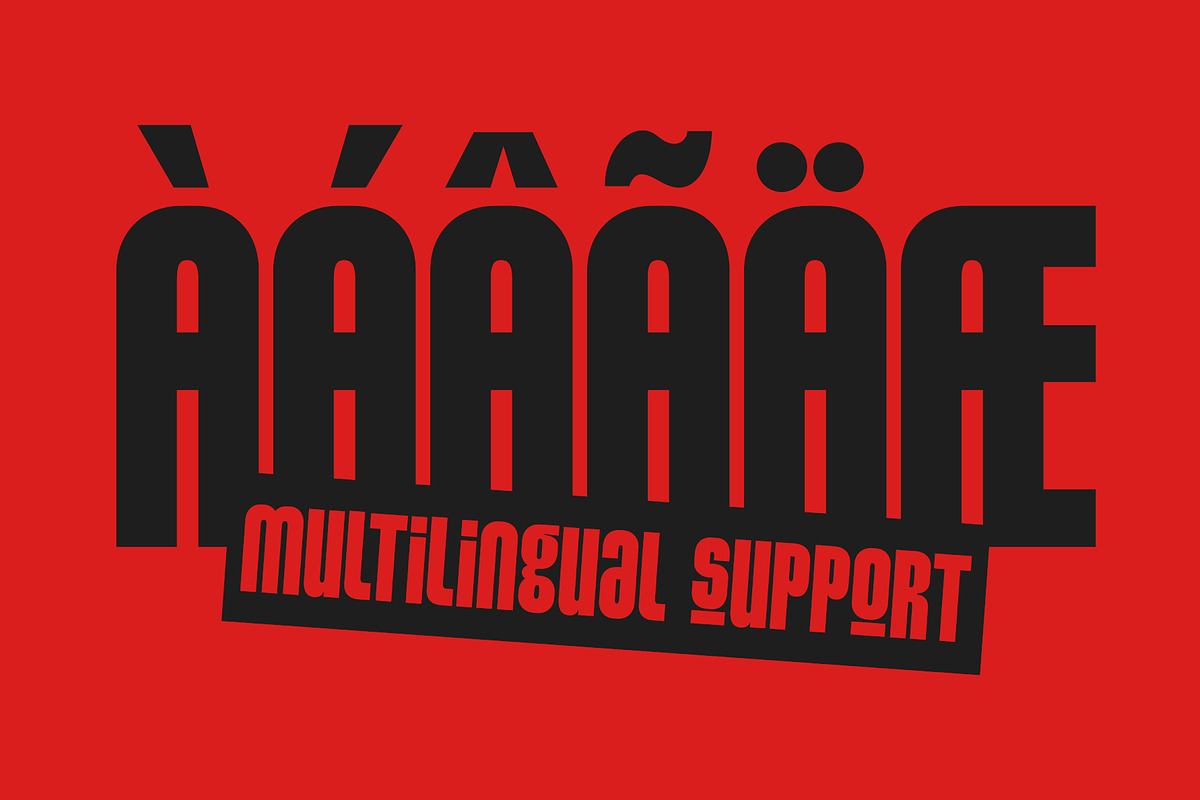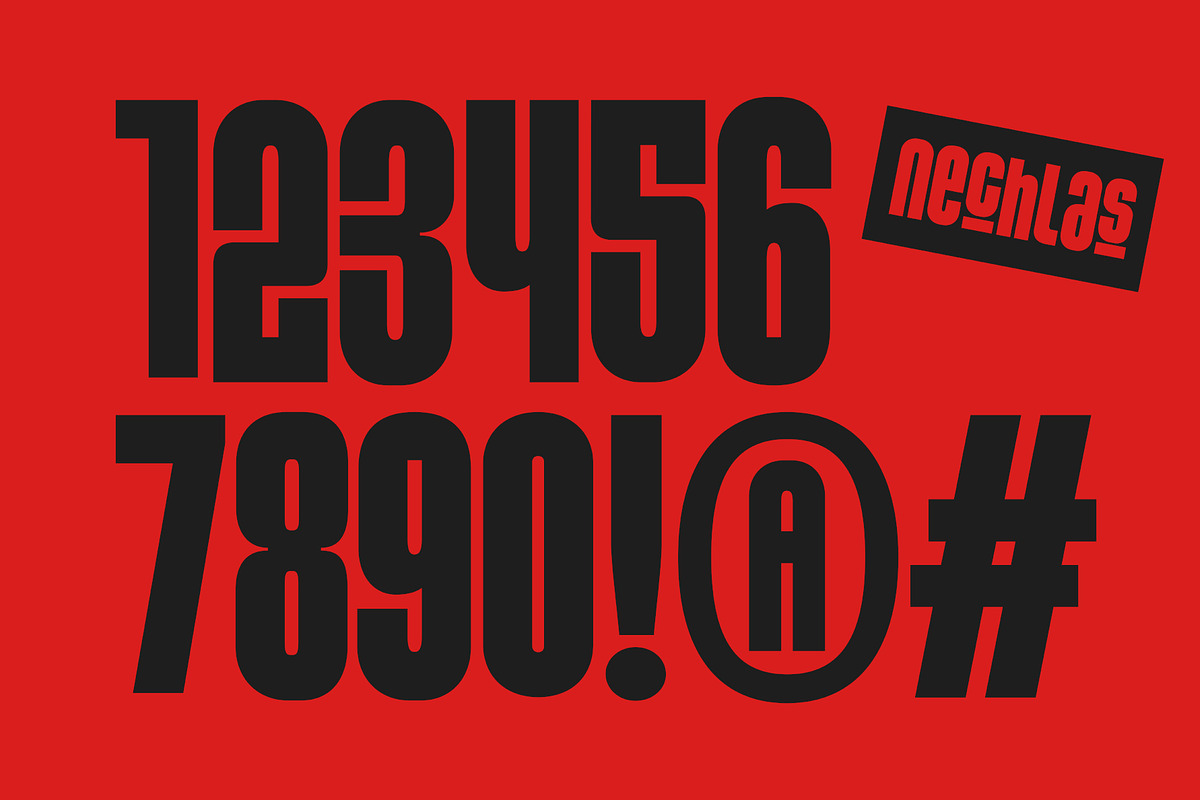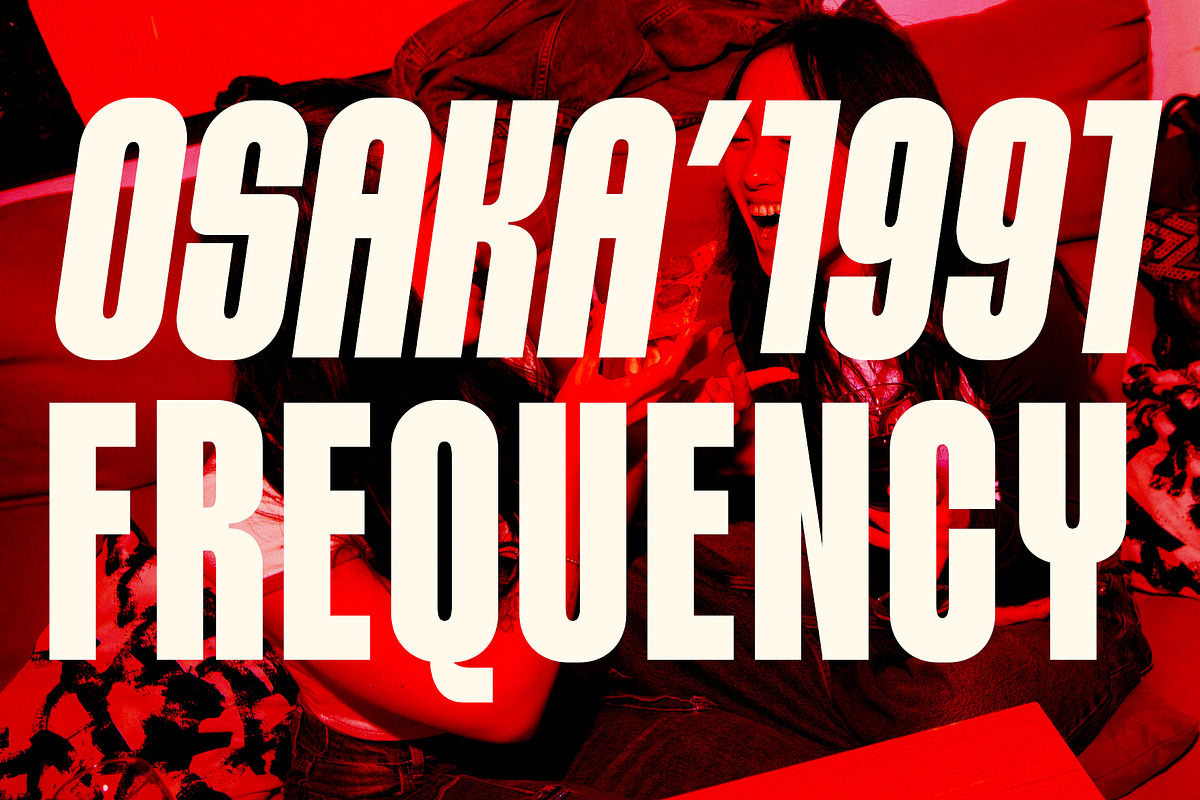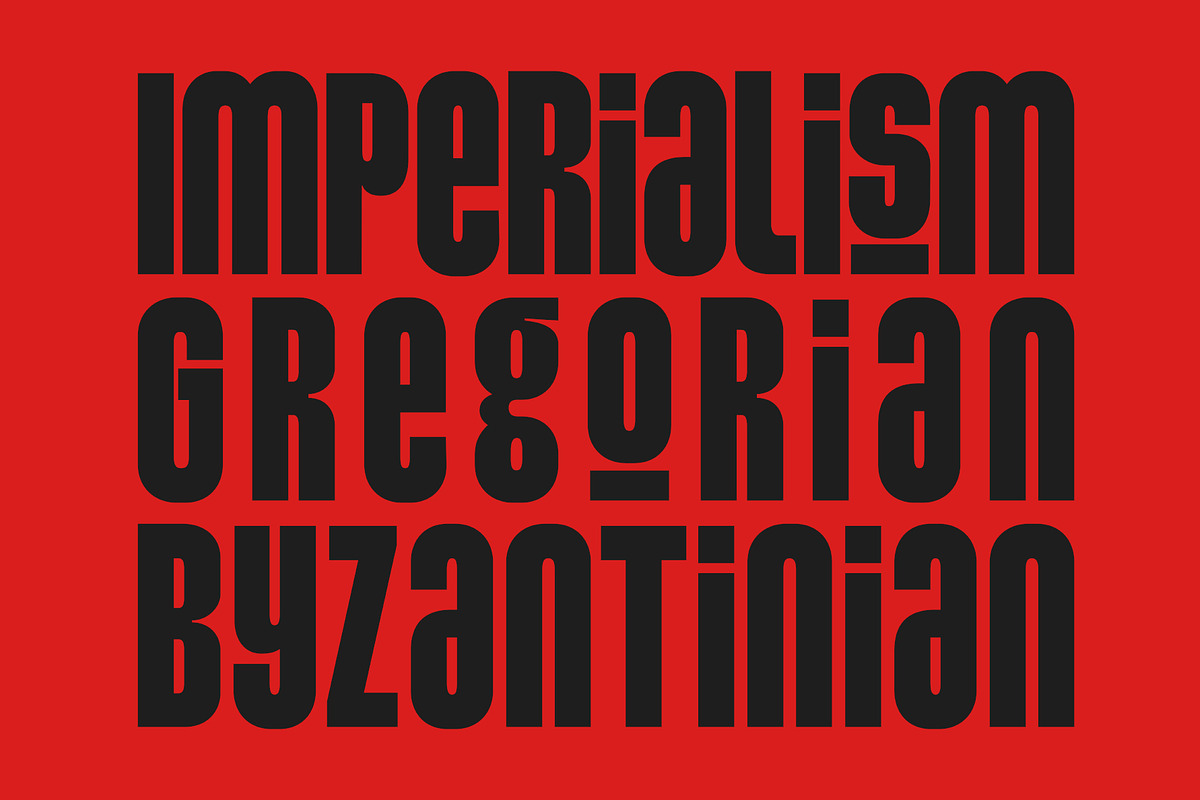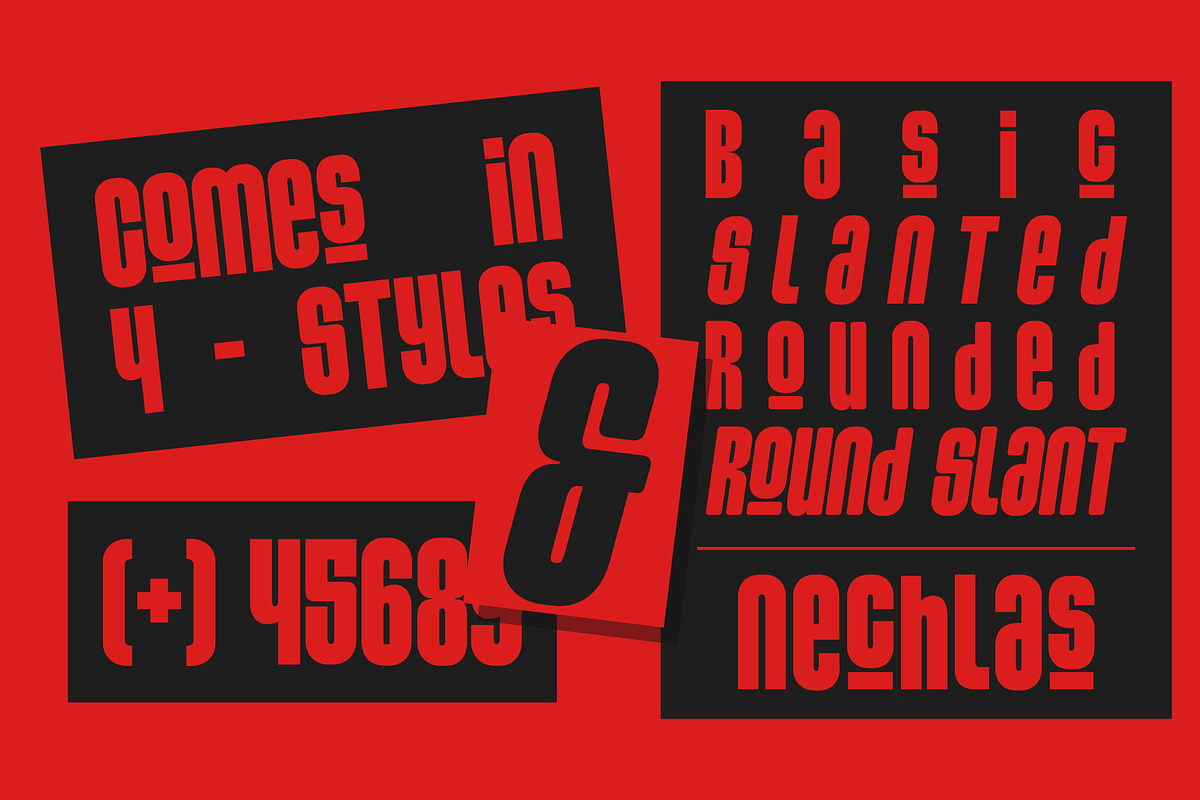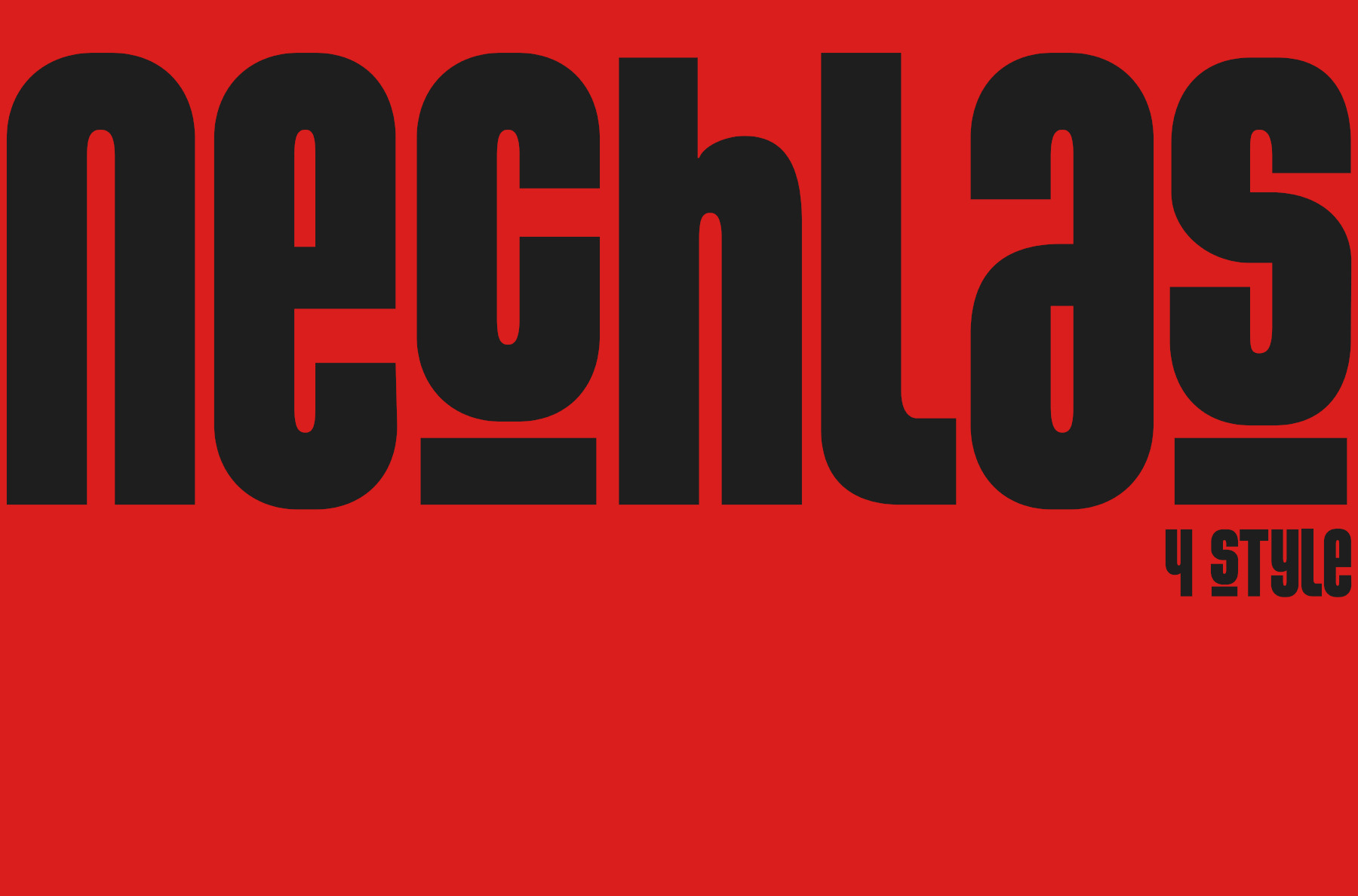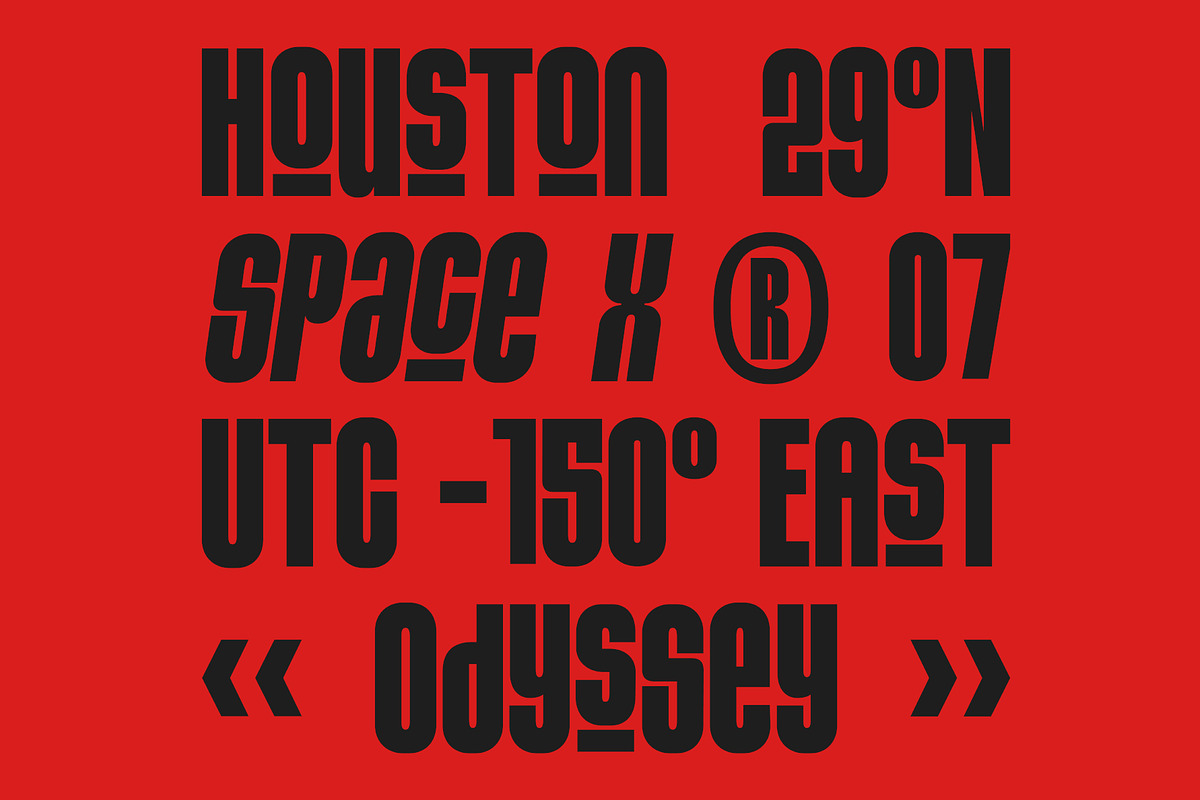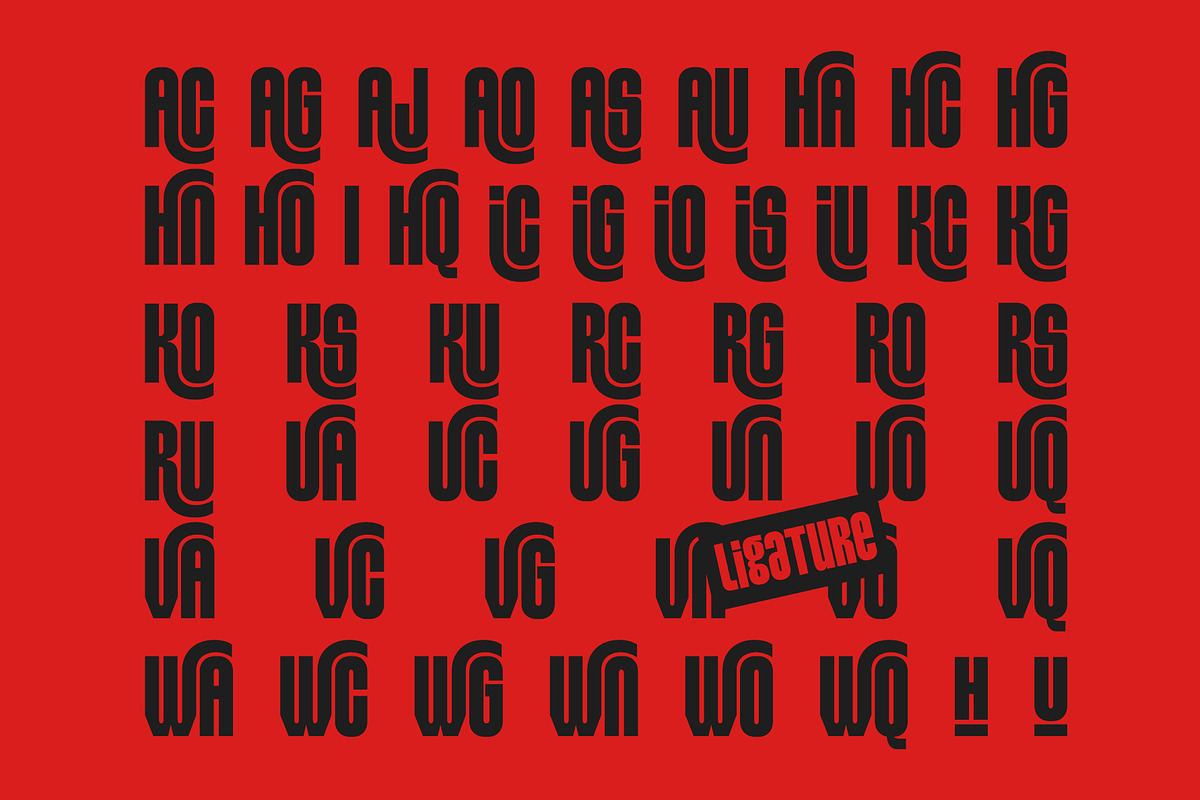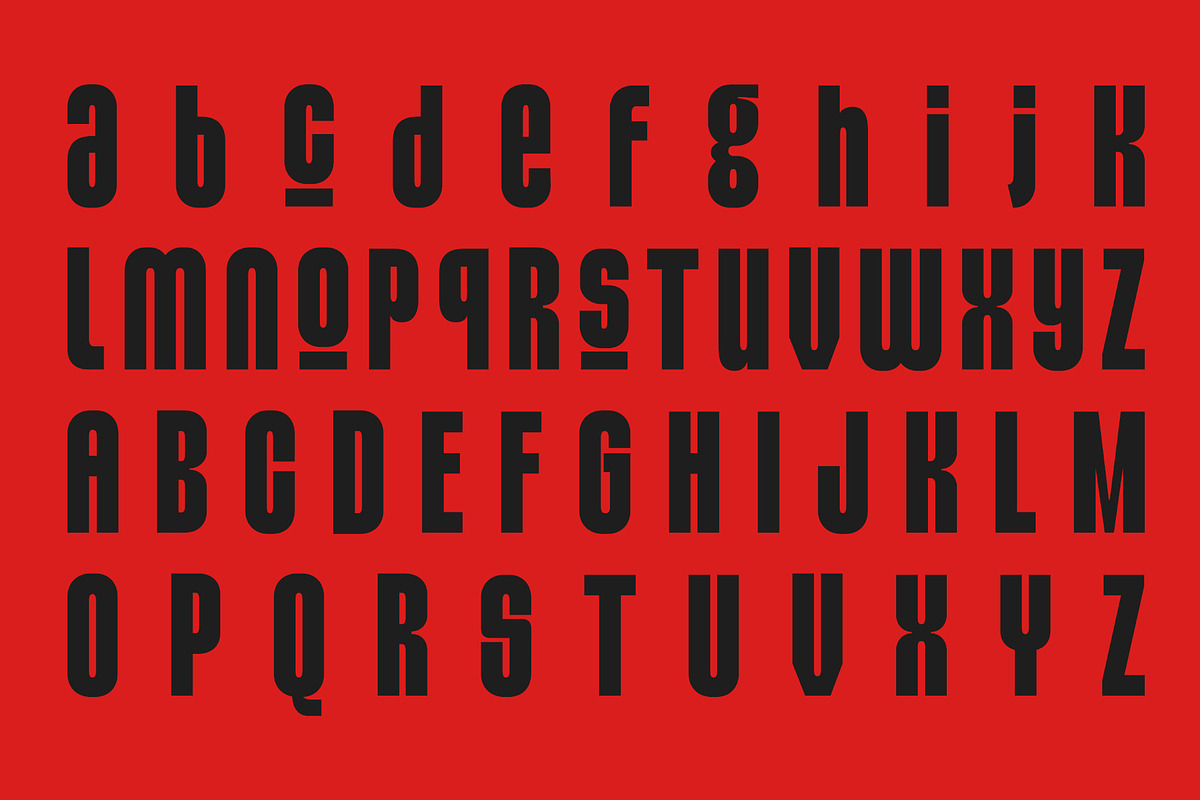
Nechlas Font
Nechlas is an extremely bold, condensed, and high-impact display font. Its most defining characteristic is its aggressive, industrial aesthetic, achieved through unique "stencil" or "cut-out" horizontal breaks in the letterforms. This modular design gives it a digital, futuristic, and blocky feel. The letter shapes are constructed with a mix of rounded outer curves (like the 'n', 'c', 's') and hard, blocky internal structures. The overall impression is one of power, speed, and modern technology. The high-contrast black font on a vibrant red background amplifies its energetic and demanding presence, making it impossible to ignore.
Command attention and energize your designs with Nechlas, a powerful and futuristic display font family. Built for high-impact, Nechlas features an aggressive, industrial style with unique stencil cut-outs that create a bold, technological feel.
This font isn't just one look—it's a versatile typographic toolkit. The Nechlas family comes loaded with 4 distinct styles:
Regular: Strong, sharp, and impactful.
Rounded: Softens the edges for a slightly more approachable, "tech-retro" vibe.
Slant: Adds a sense of speed and dynamic motion.
Rounded Slant: The perfect blend of speed and smooth, modern style.
Nechlas is perfect for designs that need to shout. Use it for high-octane sports branding, sci-fi movie posters, urban apparel, gaming logos, automotive ads, or any project that demands a strong, futuristic, and unforgettable headline.